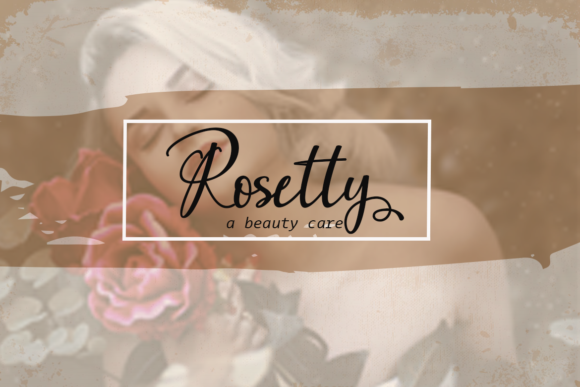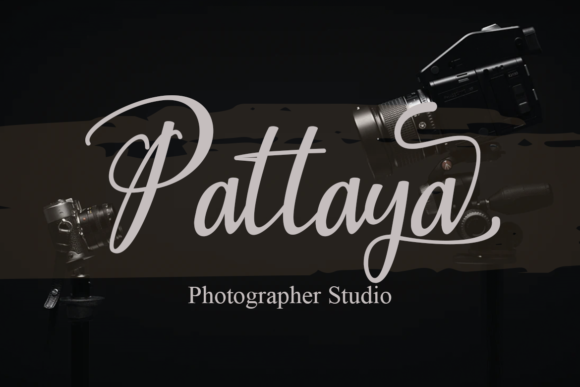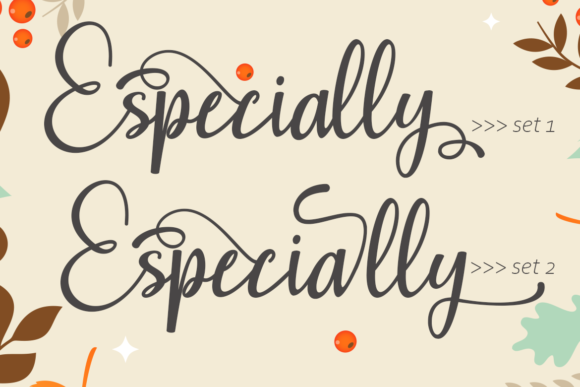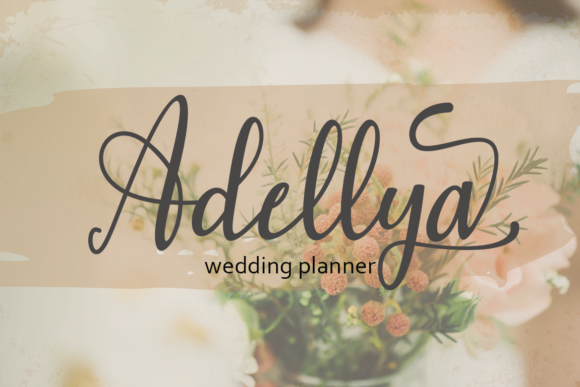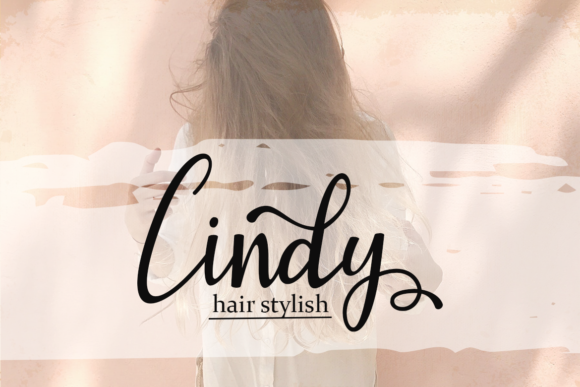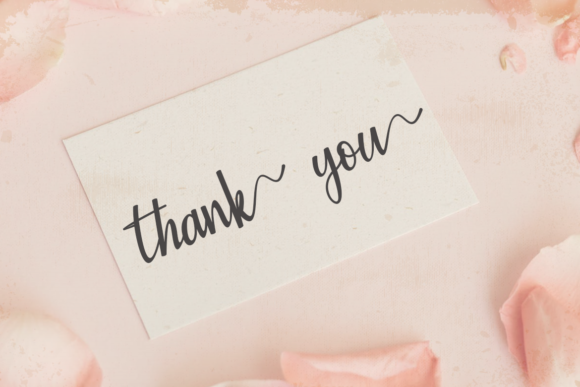
Introducing Especially Font: Elevate Your Creativity with this Stunning Handwritten Font
Are you a designer, crafter, or creative enthusiast looking for a font that can take your projects to the next level? Look no further than Especially Font, a ravishing handwritten font designed to become a true favorite in your collection. With its unique charm and versatility, Especially Font has the potential to bring each of your creative ideas to the highest level, making it an essential tool for anyone looking to add a personal touch to their work.
What Makes Especially Font So Special?
Especially Font is more than just a beautiful handwritten font – it’s a game-changer for creatives. Here are just a few reasons why:
- PUA Encoded for Easy Access: Especially Font is PUA (Private Use Area) encoded, which means you can access all of the glyphs and swashes with ease. This makes it simple to customize your text and add unique flourishes to your designs.
- Ravishing Handwritten Style: With its delicate, cursive strokes and charming letterforms, Especially Font adds a touch of elegance and sophistication to any project. Whether you’re creating invitations, branding materials, or digital content, this font is sure to impress.
- Versatile and Adaptable: Especially Font is designed to be versatile and adaptable, making it perfect for a wide range of creative applications. From crafting and scrapbooking to graphic design and digital art, this font can be used to add a personal touch to any project.
How to Use Especially Font in Your Creative Projects
Using Especially Font in your creative projects is easy! Here are a few ideas to get you started:
- Invitations and Stationery: Add a touch of elegance to your invitations, greeting cards, and stationery with Especially Font. Its delicate, cursive strokes make it perfect for formal and informal events.
- Branding and Packaging: Use Especially Font to add a personal touch to your branding materials, such as logos, labels, and packaging. Its unique charm and character will help your brand stand out.
- Digital Content: Especially Font is also perfect for digital content, such as blog posts, social media graphics, and email newsletters. Add a touch of personality to your online presence with this beautiful handwritten font.
- Crafting and Scrapbooking: If you’re a crafter or scrapbooker, you’ll love using Especially Font to add a personal touch to your projects. Use it to create beautiful journal cards, tags, and other embellishments.
Tips and Tricks for Getting the Most Out of Especially Font
Here are a few tips and tricks for getting the most out of Especially Font:
- Experiment with Different Sizes and Colors: Especially Font looks great in a variety of sizes and colors. Experiment with different combinations to find the one that works best for your project.
- Mix and Match with Other Fonts: Don’t be afraid to mix and match Especially Font with other fonts to create a unique and interesting look.
- Use the Swashes and Glyphs: Take advantage of the PUA encoding and use the swashes and glyphs to add extra flair to your text.
| Font Name | Especially Font |
| Author | Supersemar Letter |